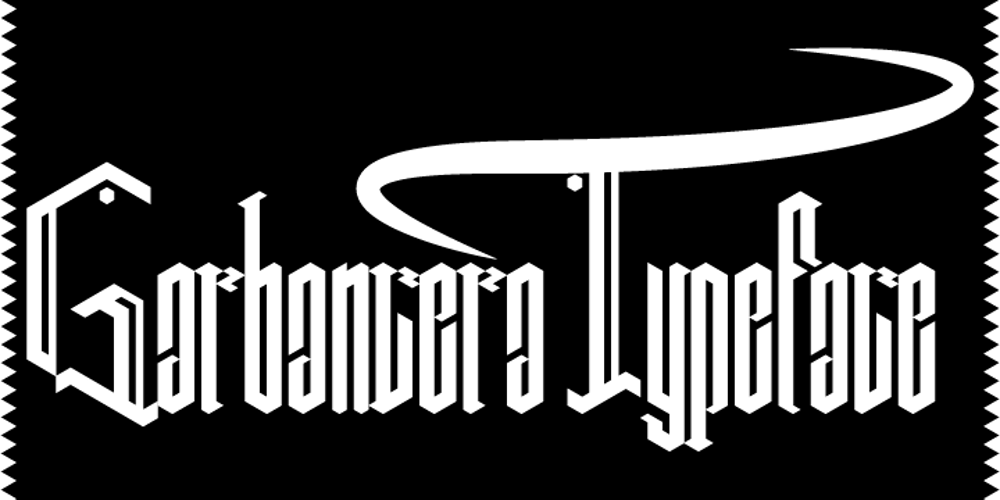
Garbancera Font Family was designed by published by Rodrigo Navarro Bolado. Garbancera contains 1 styles and family package options. Gothic fraktur inspired design, I wanted to resemble old german calligraphy but making it very geometric, so I used an isometric reticle during sketching. This is a display font, created for BIG sizes, non textual. I recommend it for branding, poster, logos or titles. Its very experimental — it exists within the limits of legible and illegible reading. I choose the name “Garbancera” because gothic calligraphy has issues that are linked with dark, gloomy, lugubrious things or fear feelings, culturally in Mexico. I related this with death and for mexicans, death is something we celebrate and give us joy and happiness, annoying, the most representative Mexican characters, one of those is “La Calavera Garbancera” or better known as “La Catrina”, a clothes skeleton with only a hat. It was drawn this way to make a critic to all Mexicans at that time, that were poor but they wanted to represent a high lifestyle, “those that where to the bones, but with a French hat with ostrich feathers”. La Catrina was created by José Guadalupe Posada, a Mexican lithographer but also a newspaper illustrator. I think this is a beautiful font that can lead to great results, just use it wisely.